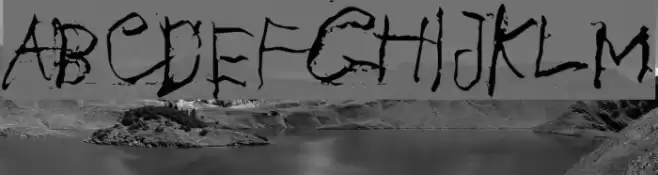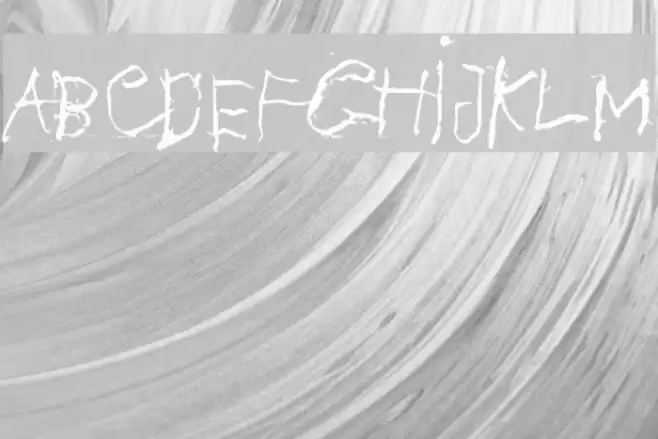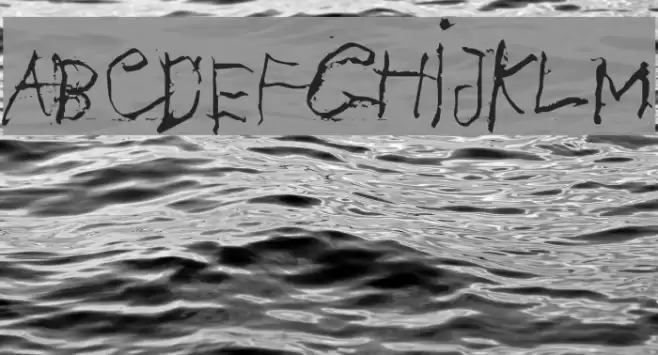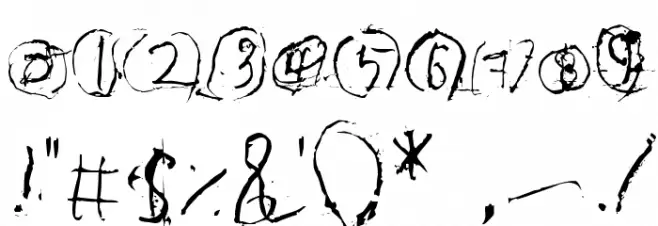
Max Rhodes Font
Max Rhodes Description
This font features a highly expressive and artistic style, characterized by its rough, hand-drawn appearance. The letters are irregular and dynamic, with varying stroke thicknesses that give it a raw and energetic feel. The uppercase and lowercase letters maintain a consistent aesthetic, with a sense of movement and spontaneity. The numerals and special characters follow the same artistic approach, adding to the overall cohesive look. This font's unique style makes it stand out, offering a bold and creative option for projects that require a distinctive and unconventional typeface.
An expressive, hand-drawn font with a rough, artistic style from Decorative fonts.